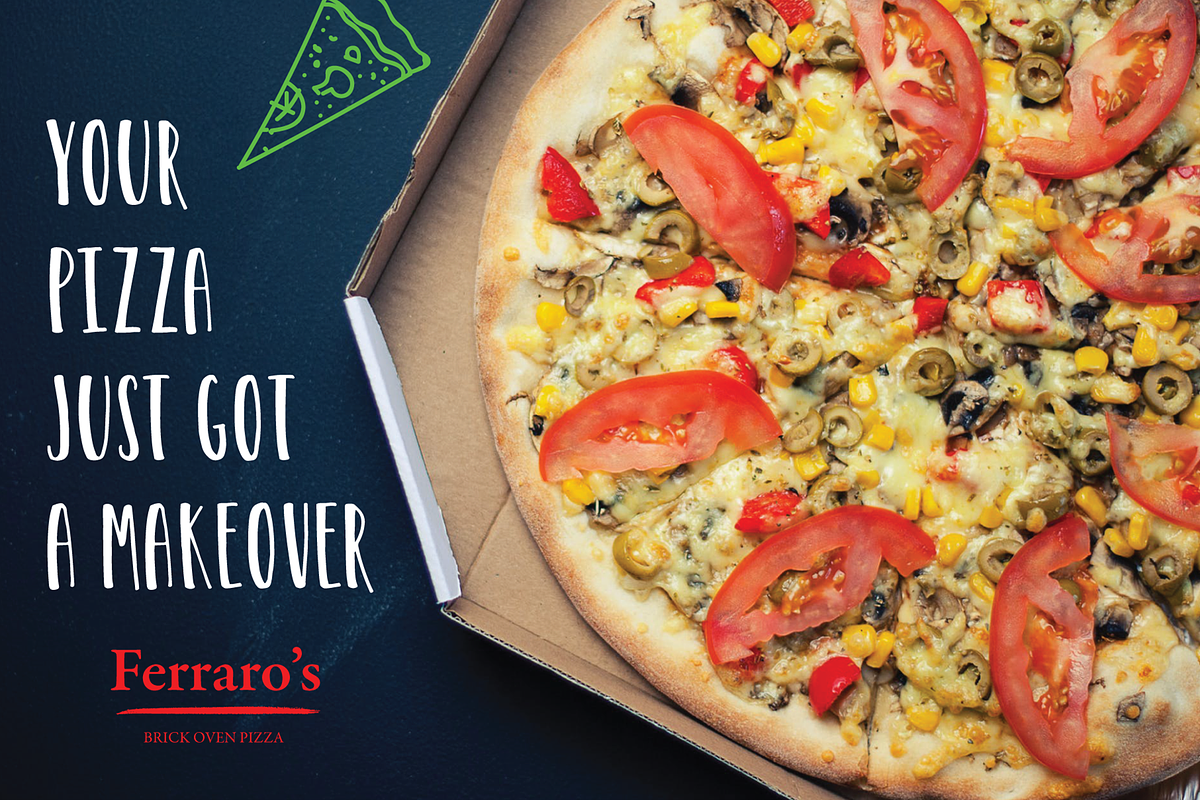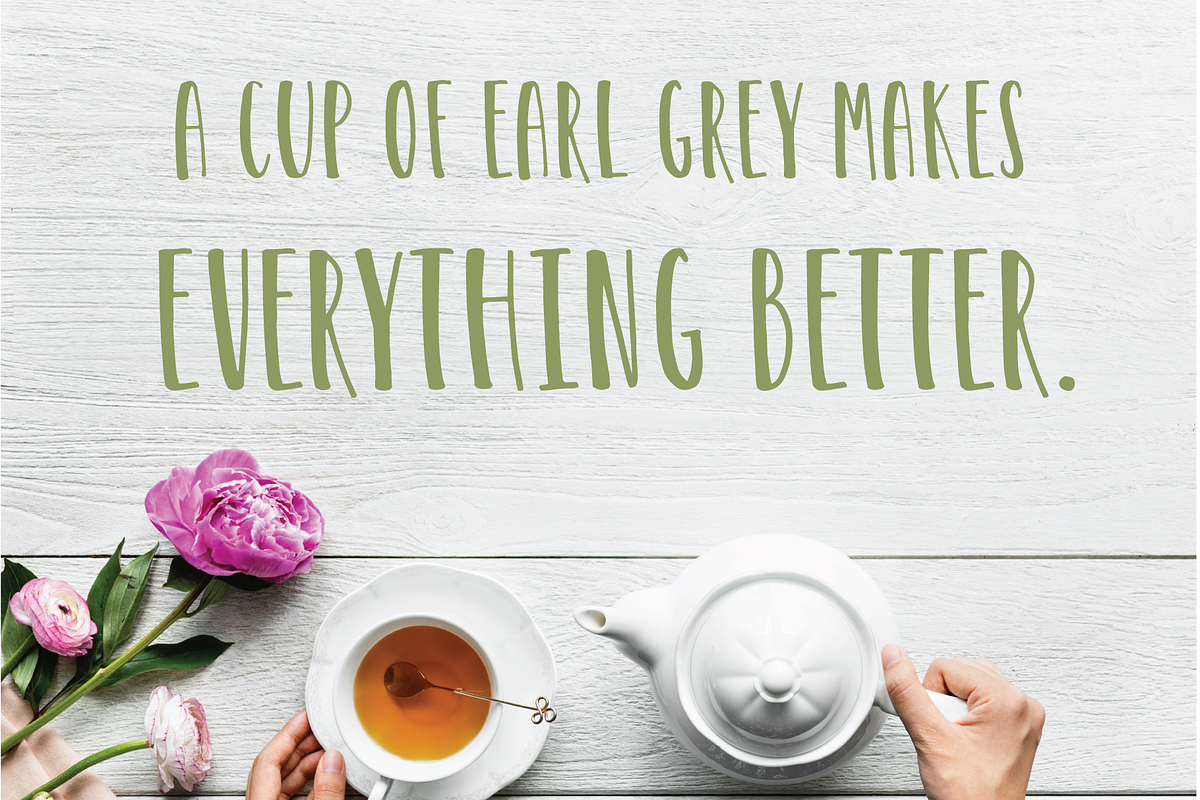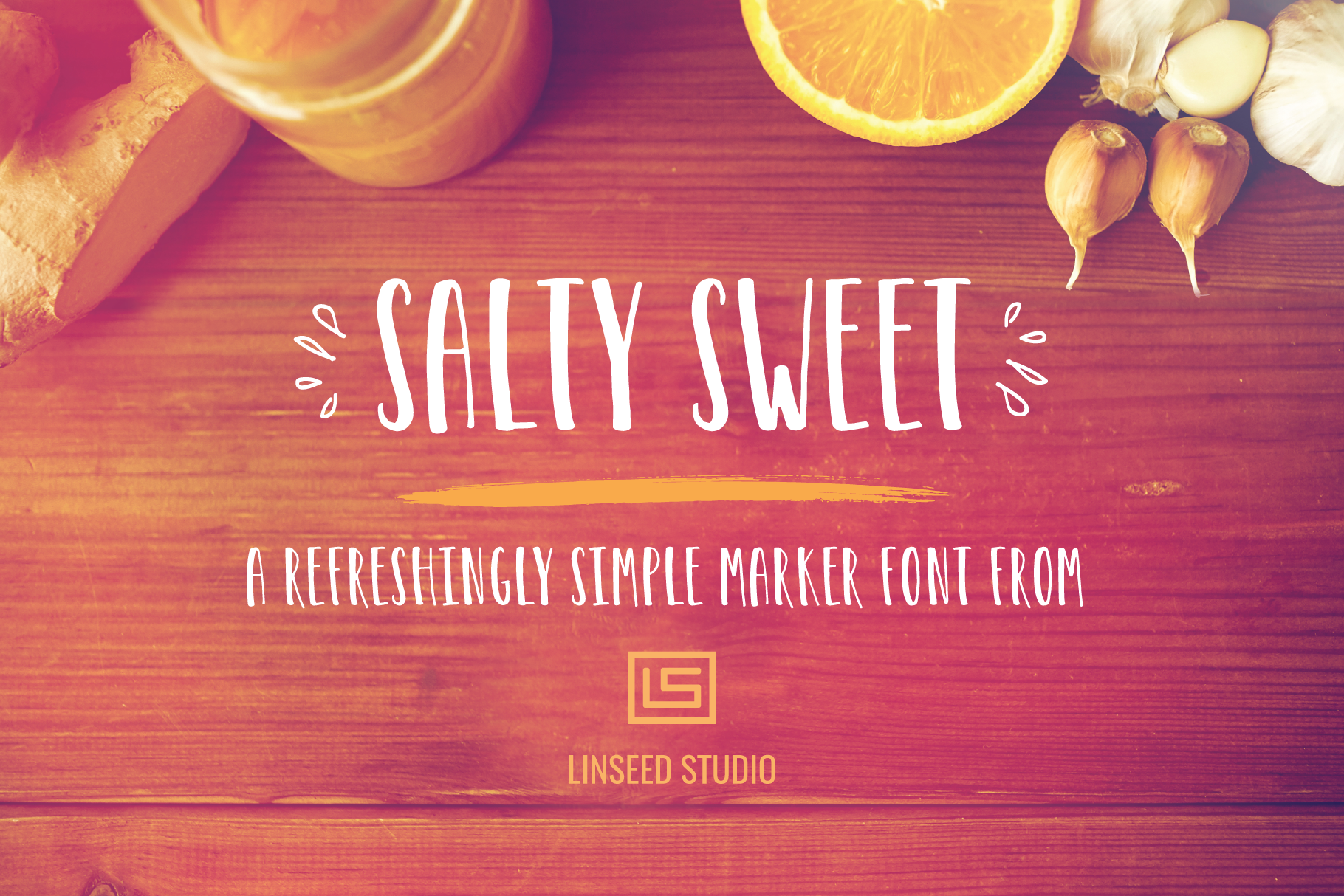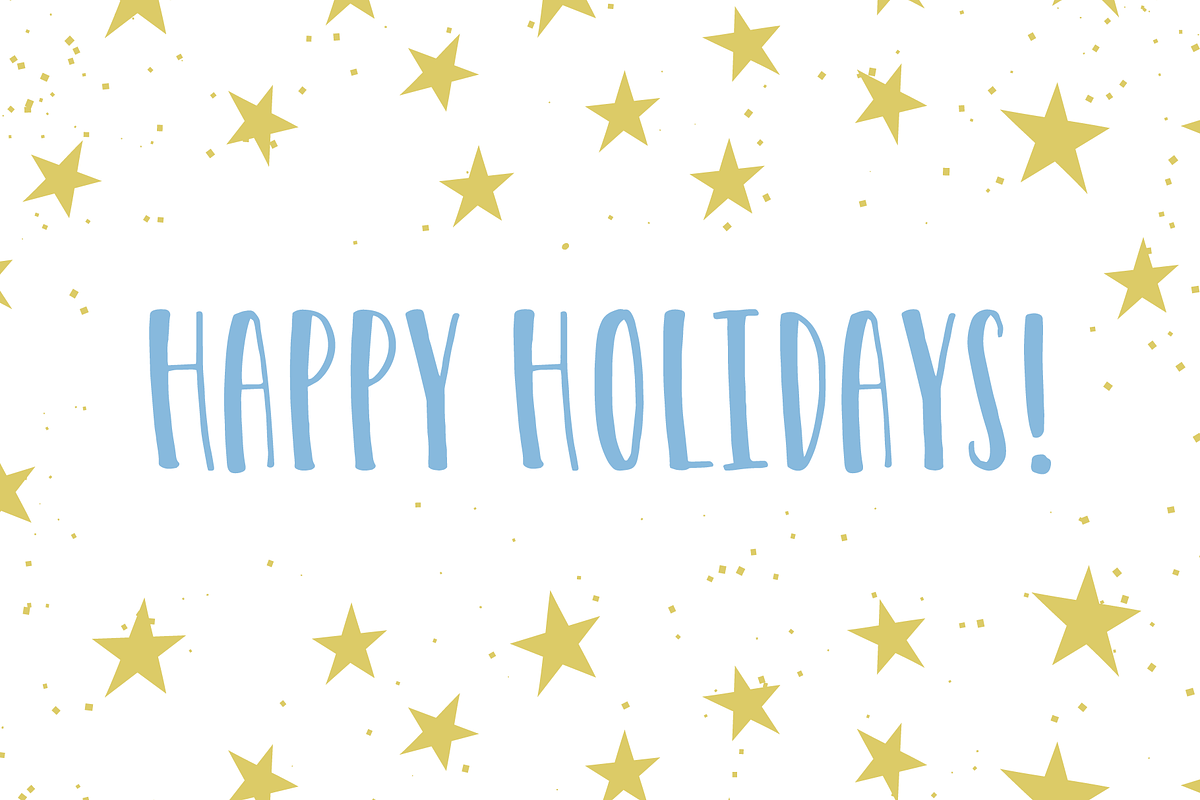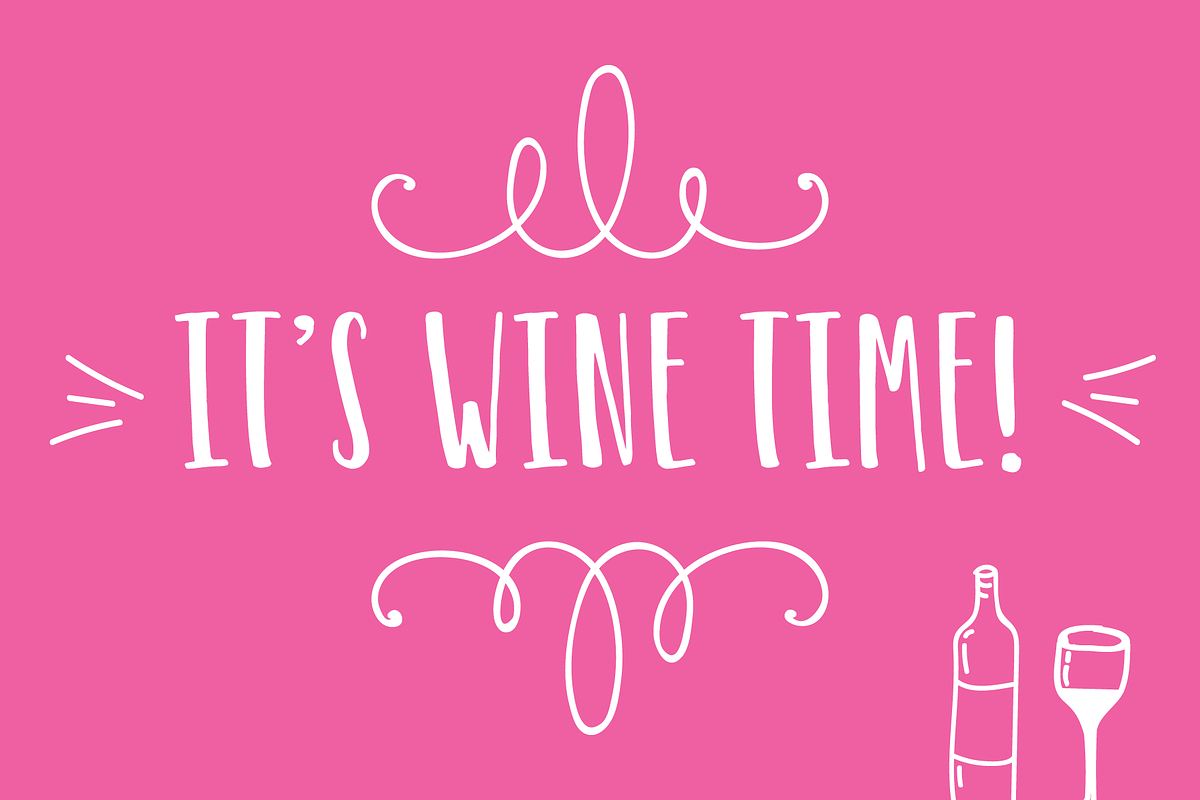
Salty Sweet Marker Font
Salty Sweet is a simple hand-drawn marker font in OTF and WOFF formats that can be used in both personal and commercial projects. It's perfect for projects that call for a light-hearted typeface like holiday cards, food / drink advertising, inspirational quotes and more!
- Salty Sweet Regular
- A-Z Uppercase